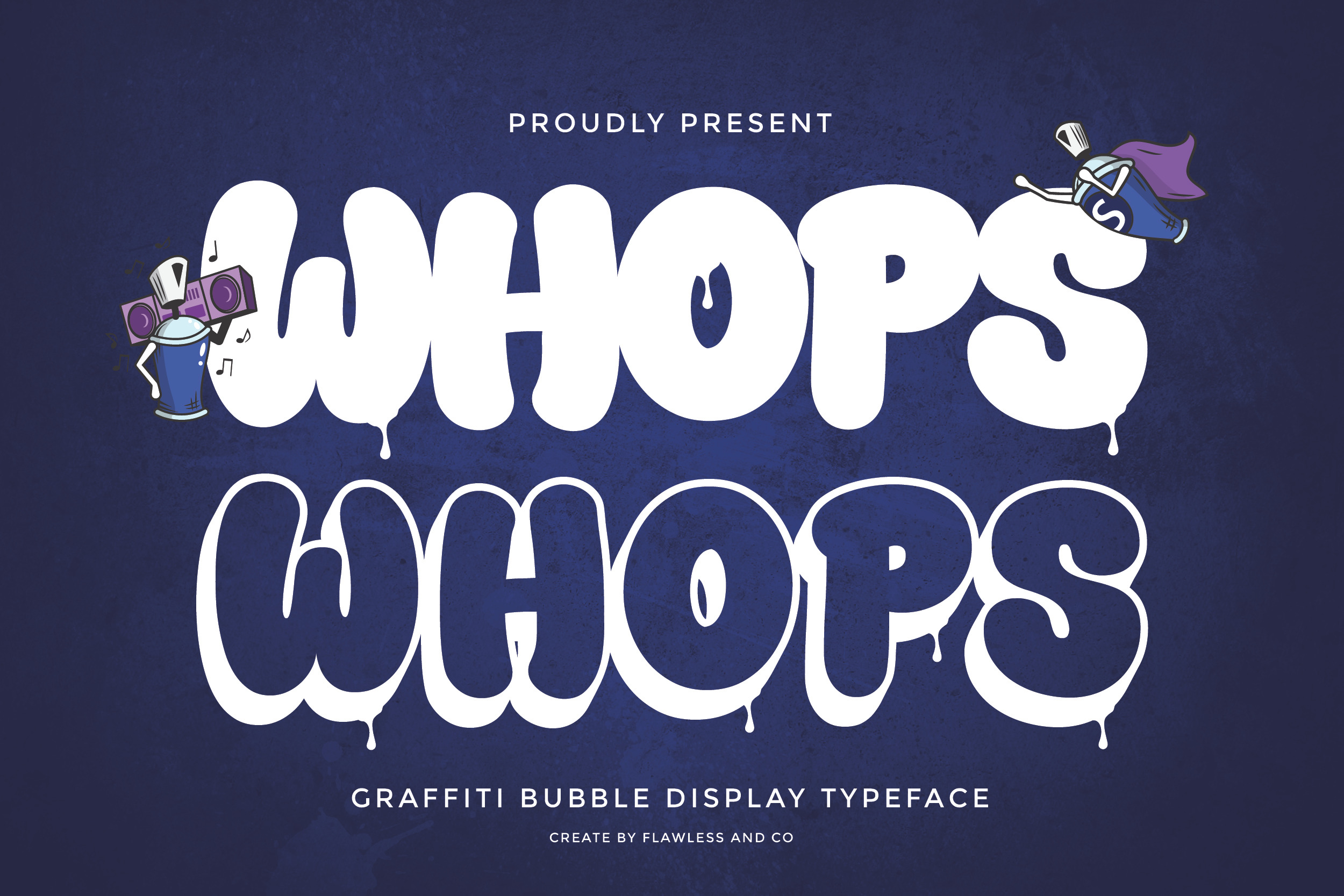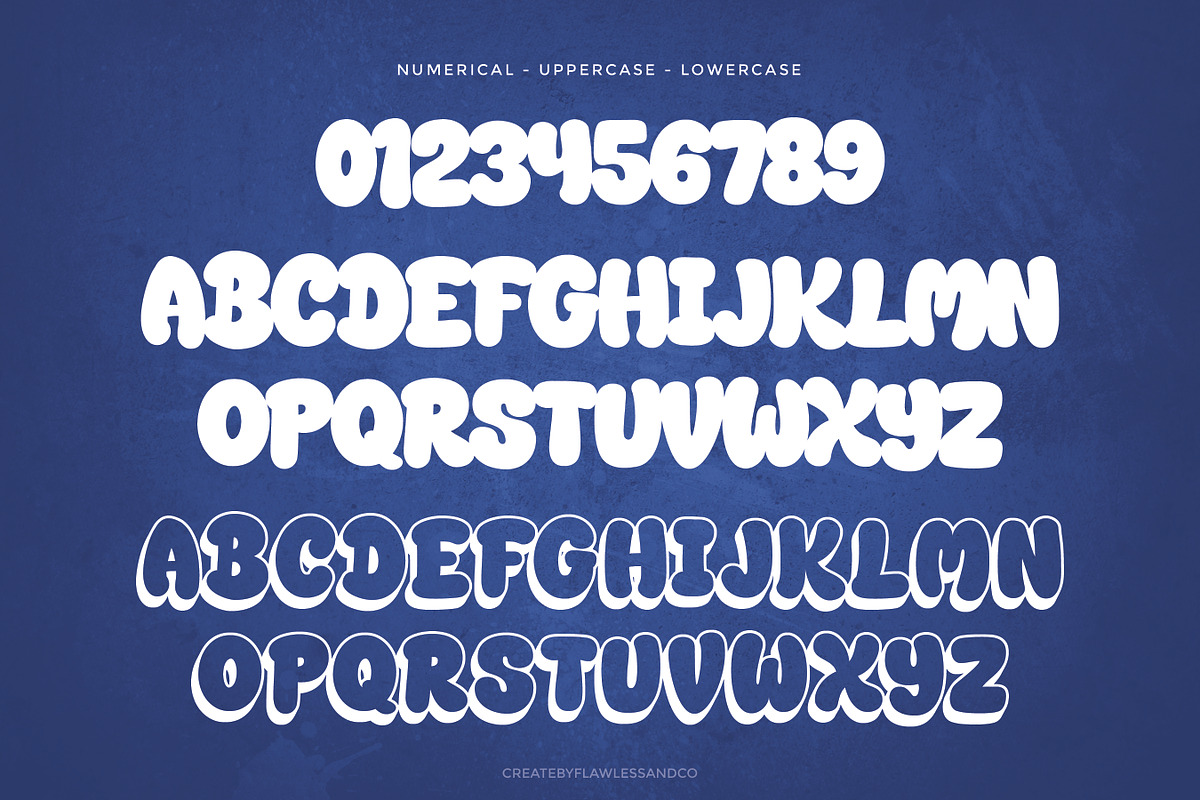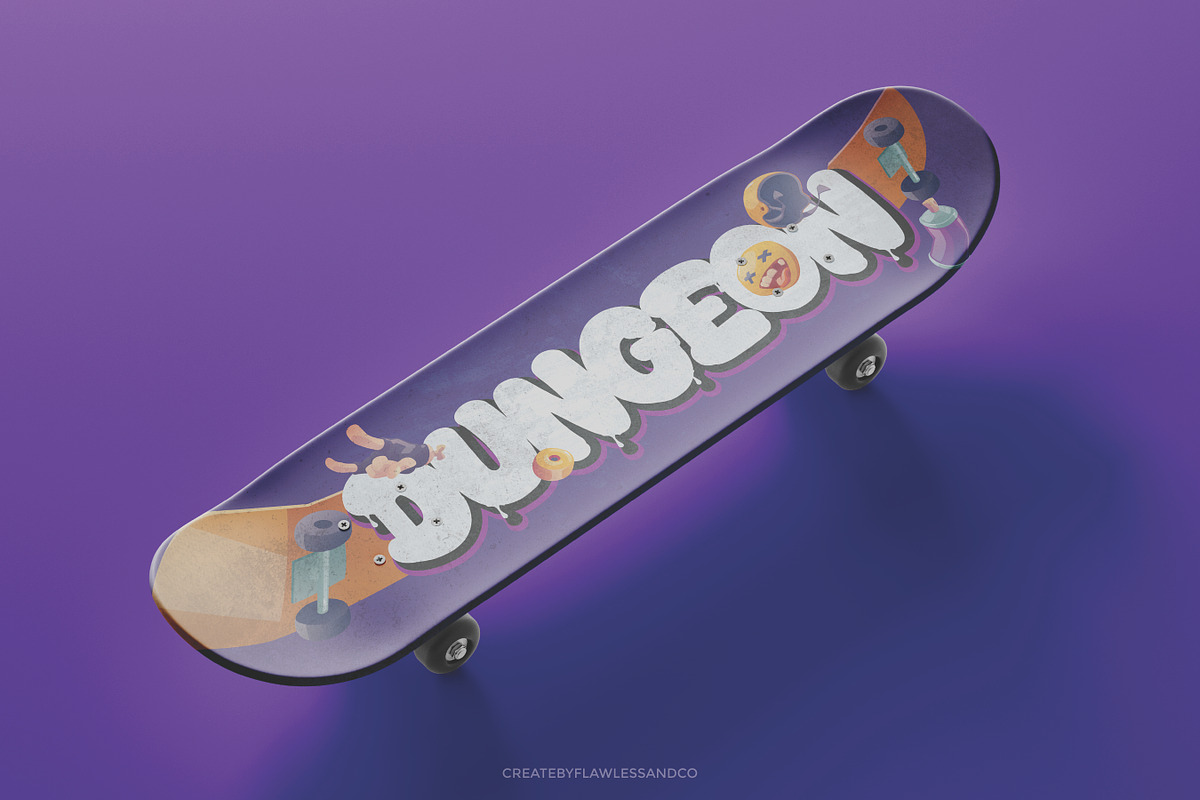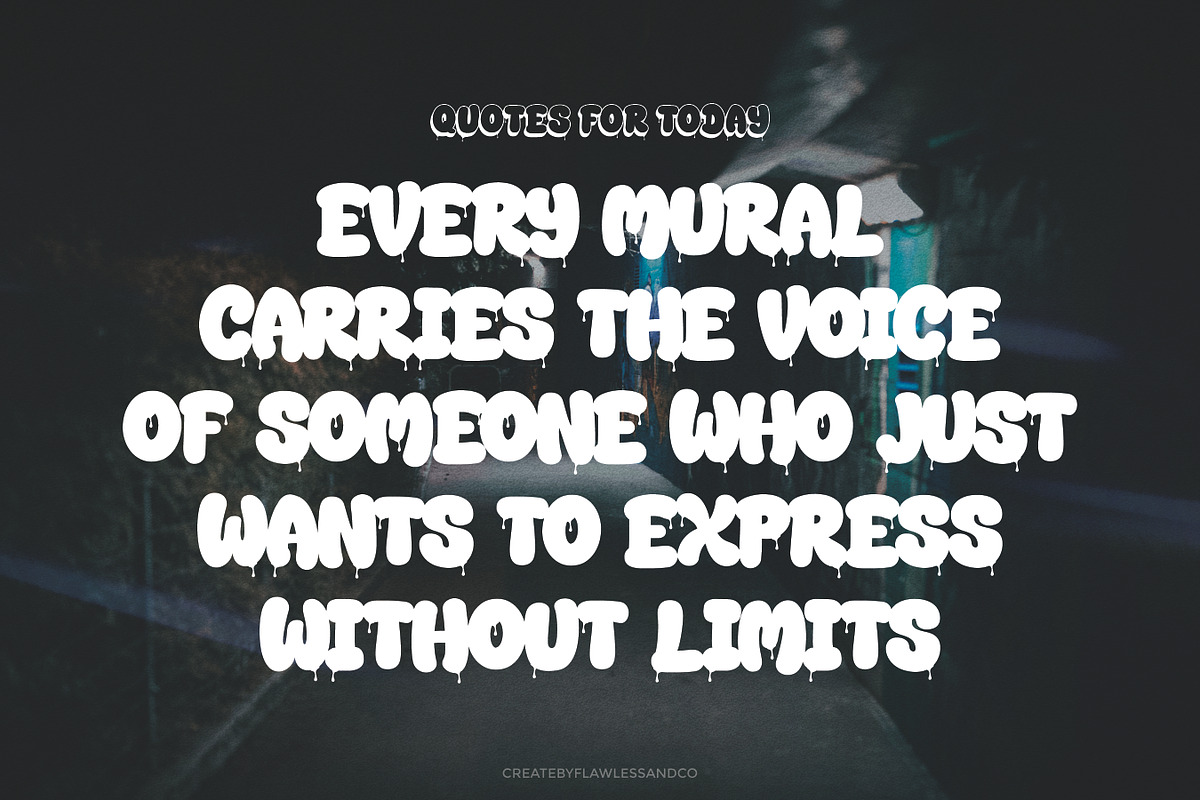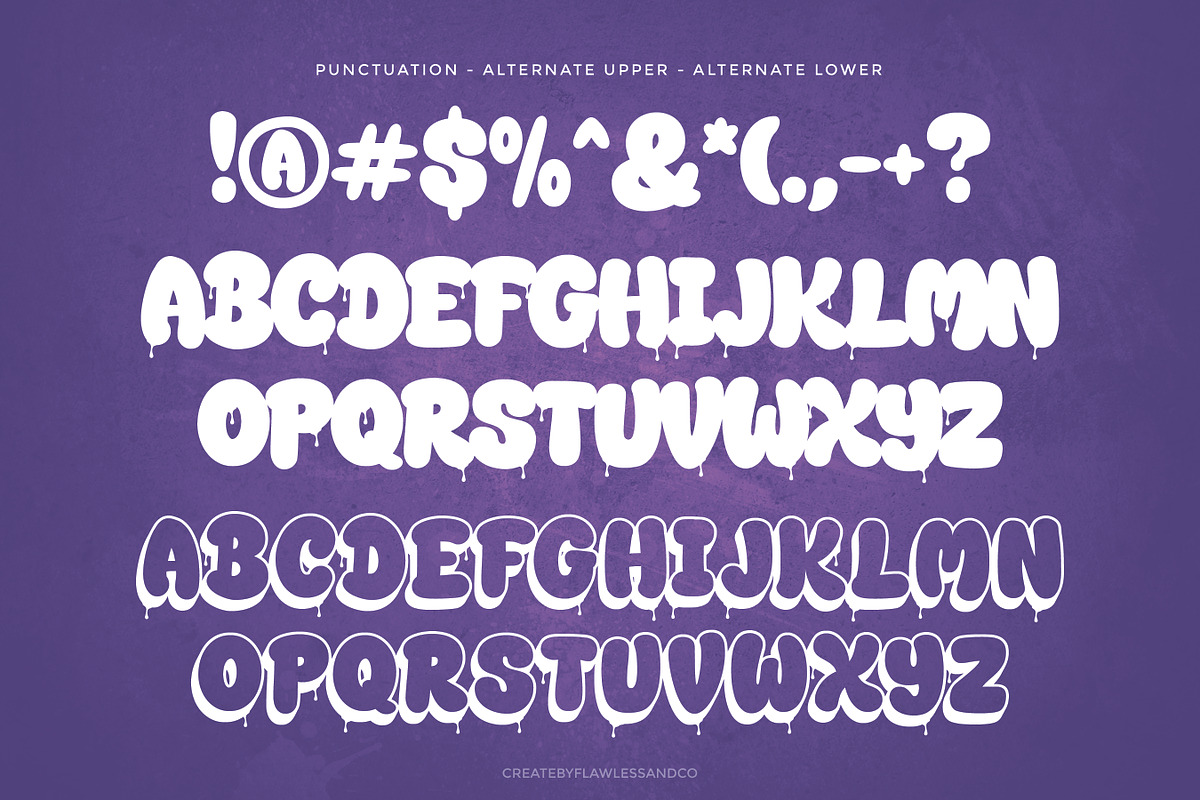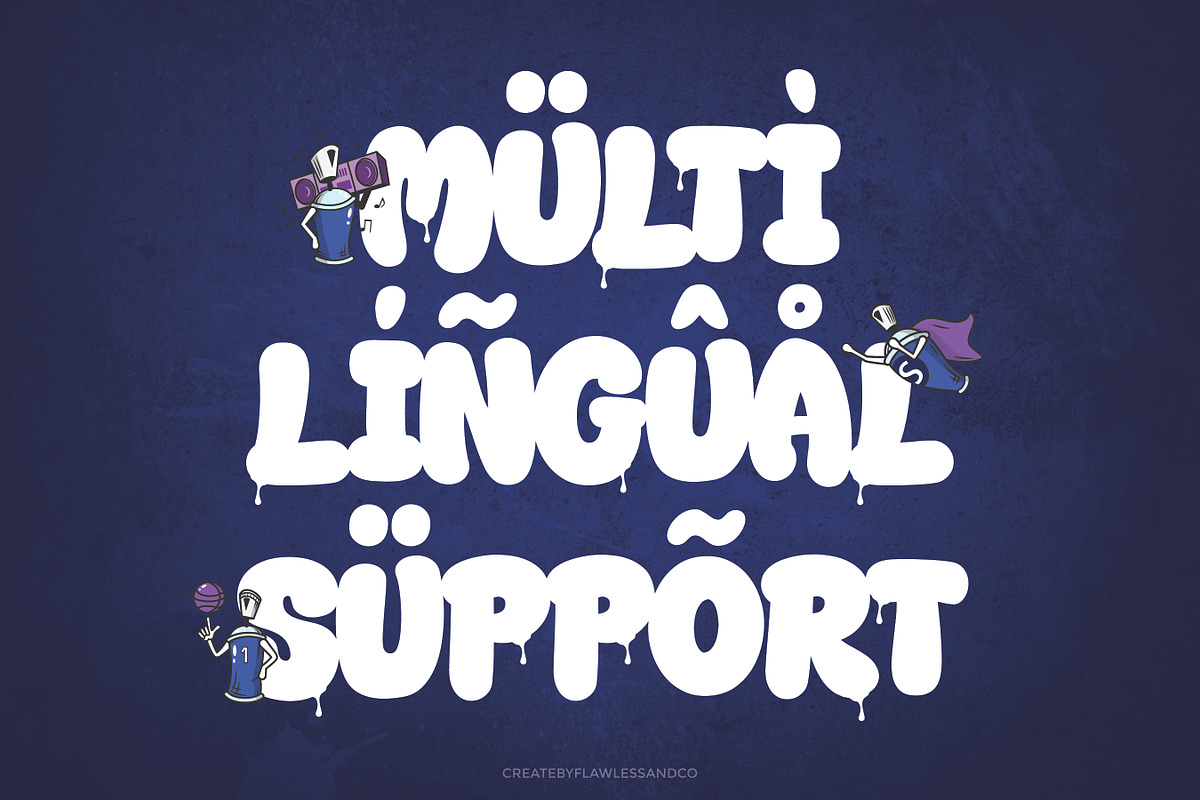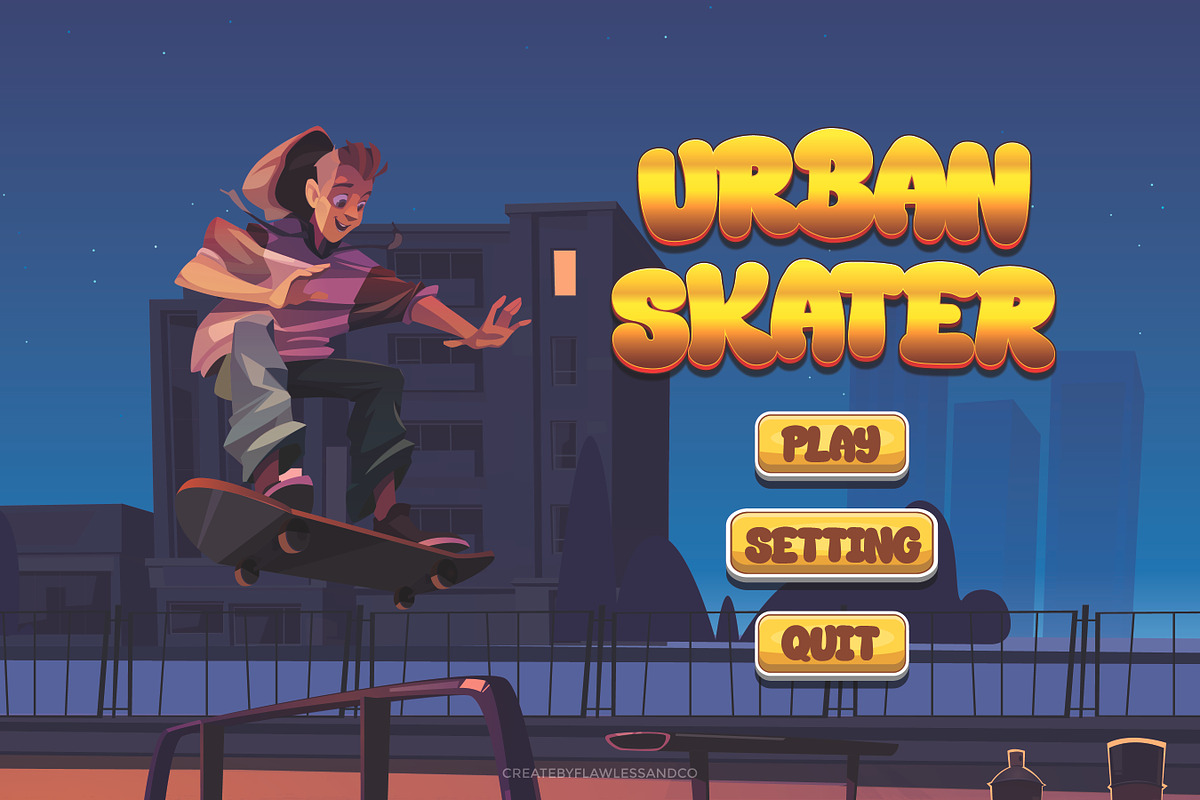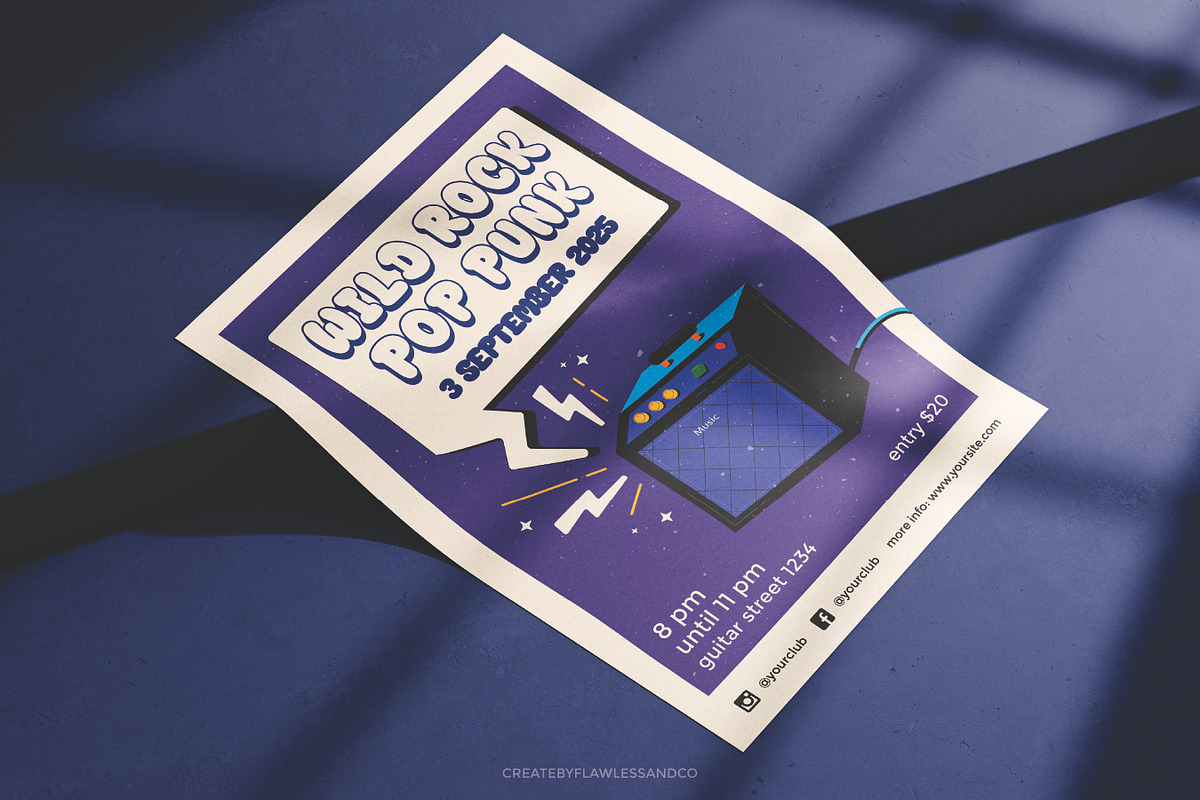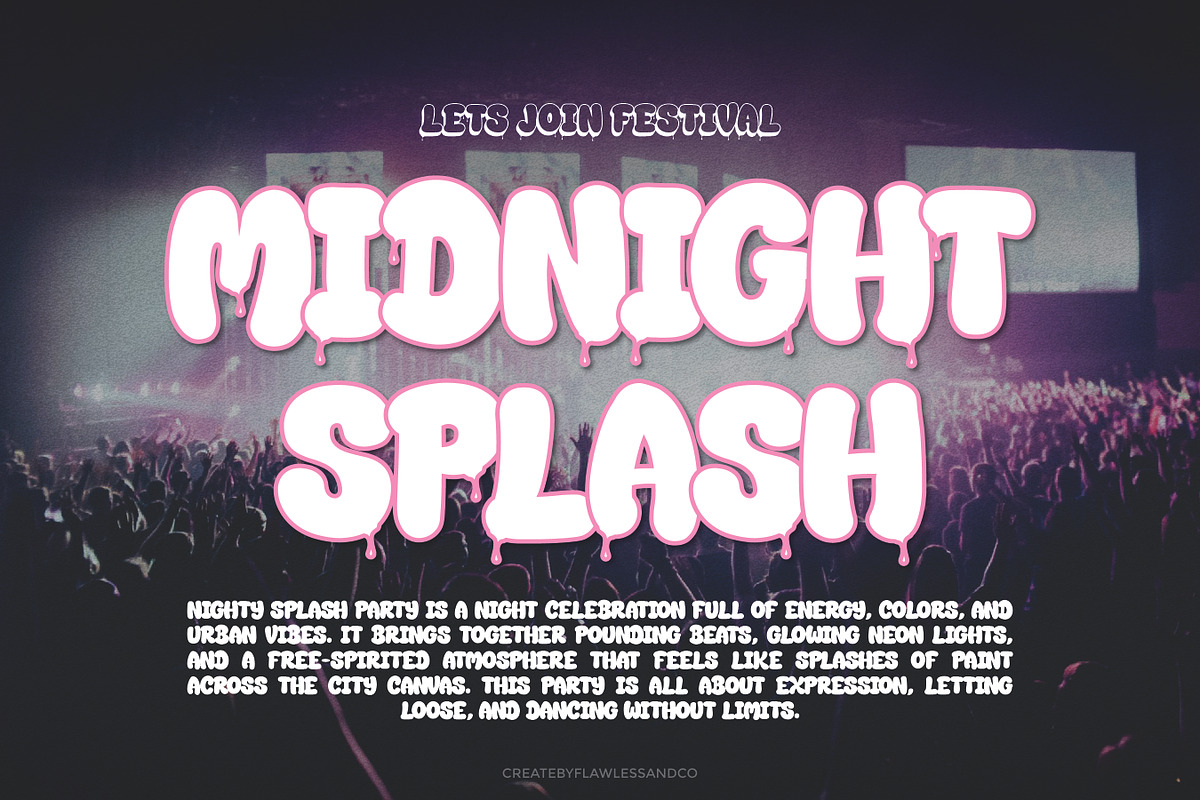
Whops - Graffiti Bubble Font
Whops is a bold graffiti bubble display font that brings the energy of street art into your designs. With its rounded, playful, and dynamic letterforms, Whops captures the spirit of urban culture, making it the perfect choice for projects that need attitude, creativity, and bold visual impact. Whether you’re working on posters, streetwear branding, music covers, or digital designs, Whops adds a modern graffiti vibe that instantly grabs attention. Designed to be both fun and powerful, Whops combines expressive curves with bubble-like shapes, giving your typography a unique and memorable presence.
Who Should Use whops?
Whops is perfect for designers, artists, and brands who want to infuse their projects with bold street style and playful creativity. It’s ideal for urban-inspired creators, graffiti and hip-hop enthusiasts, gaming designers, and anyone looking to bring a fun, eye-catching edge to their visuals. Whether you’re crafting posters, streetwear branding, music artwork, or digital graphics, Whops is made for those who want their typography to stand out with personality and attitude.
A Must-Have Font for "Brand and Logo" Creators and Designers
Whops is a must-have for brand and logo creators who want to make a statement with bold, graffiti-inspired typography. Its playful bubble style and urban edge give logos and branding a unique personality that captures attention instantly. Perfect for those who design with creativity, energy, and a modern street-style vibe, Whops ensures every project feels dynamic, original, and unforgettable.
Why choose Whops for brand and logo projects?
Because it blends bold graffiti energy with playful bubble aesthetics, making it stand out in any creative space. Its unique style communicates fun, confidence, and originality, giving brands an instant edge. Whether you’re building a youthful identity, designing for streetwear, or crafting a modern logo, Whops adds the perfect mix of creativity and urban flair to set your project apart.
Suitable For:
- Streetwear and urban branding
- Graffiti-inspired logos
- Music and entertainment projects
- Game titles and app interfaces
- Posters and event promotions
- Youth culture merchandise
- Social media graphics and digital content